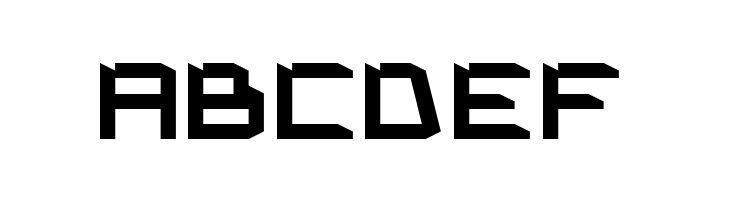
Mulher Regular Font
- Font: Mulher Regular
( Fonts by Kreative Korporation - www.kreativekorp.com )
A bold, geometric font with angular, blocky letterforms and a modern aesthetic.